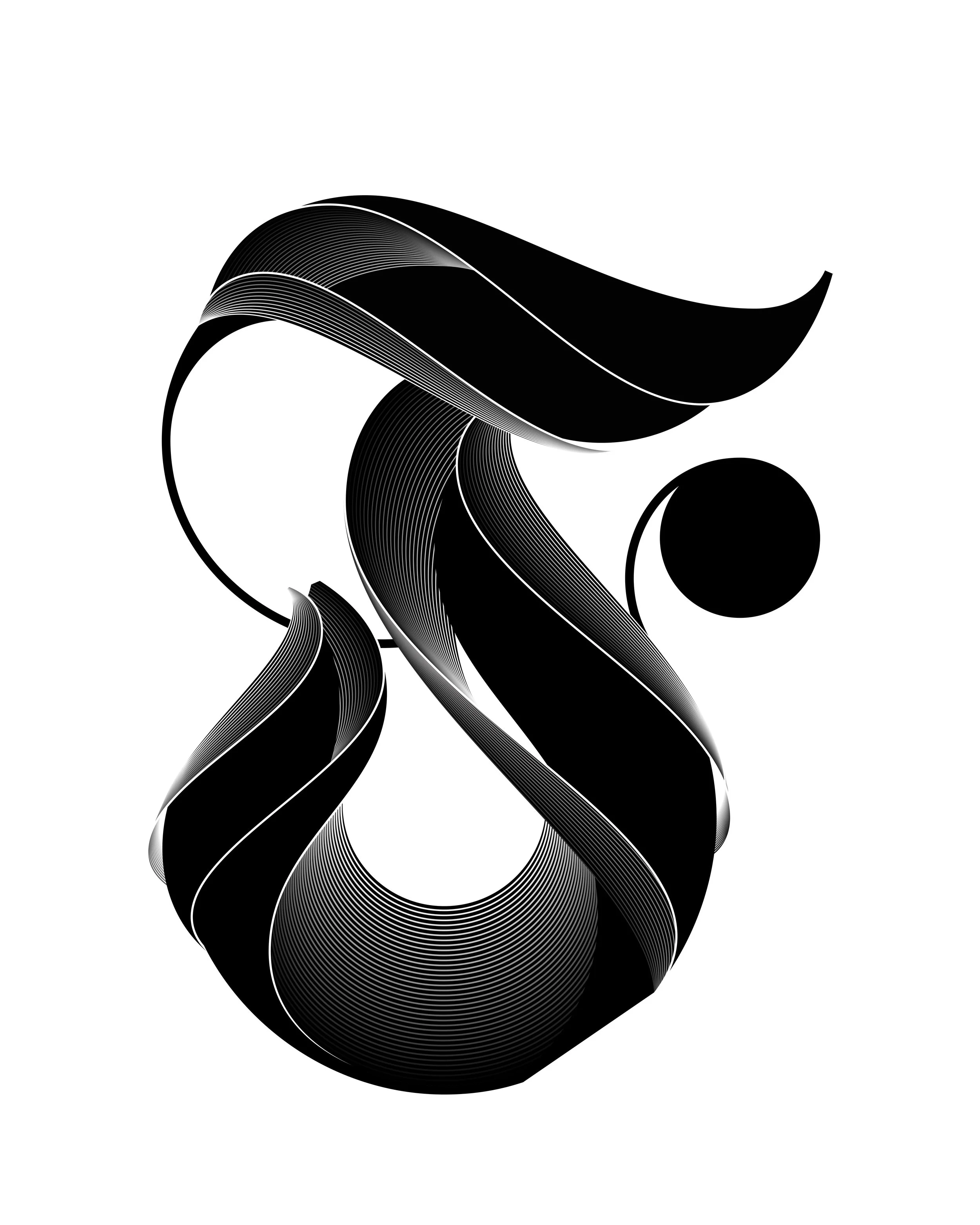
OSGARD ICONS
Custom characters designs from our osgard typeface, the font itself can be found in the link below. The icons were developed to emphasise the  fluid curvaceous elements of Romanesque typography and the Gothic style of Blackletter.